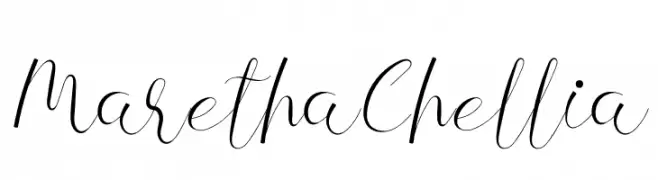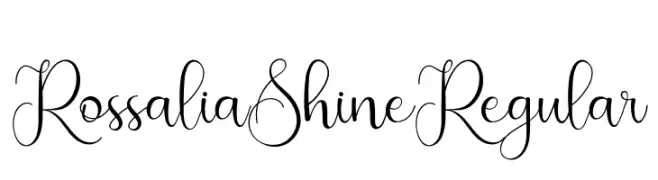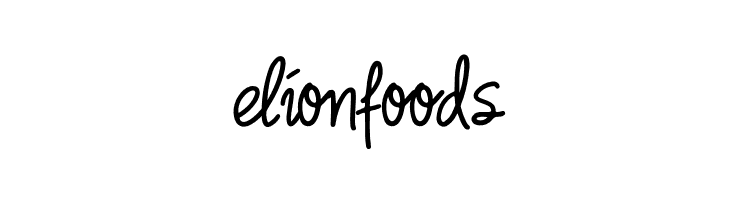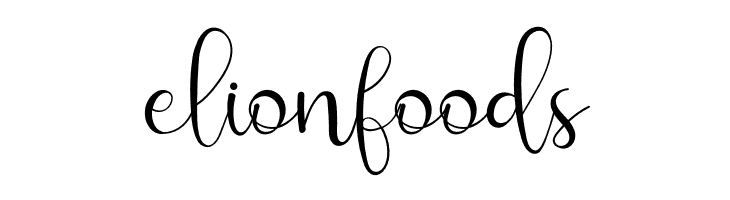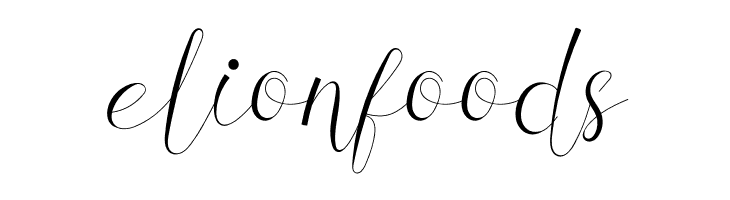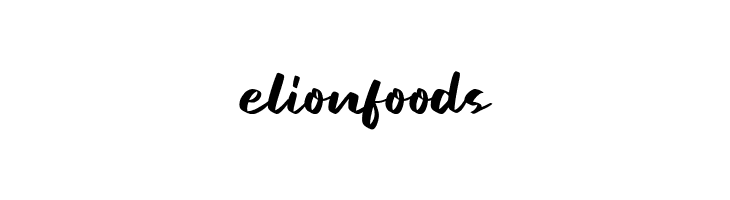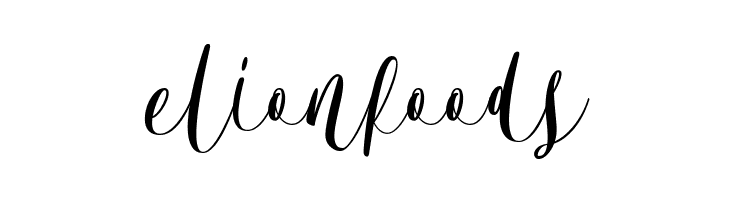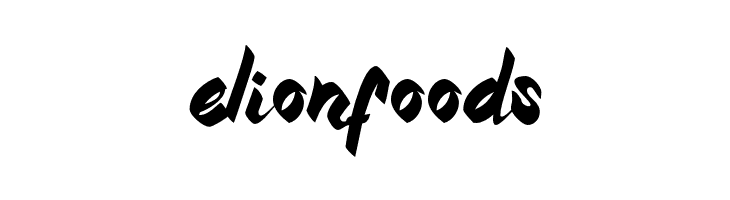
A modern, elegant script font with flowing, connected strokes.
A playful, handwritten cursive font with a casual and energetic style.
A graceful script font with flowing, connected strokes and a handwritten style.
An elegant, flowing script font with intricate loops and swirls.
An elegant and flowing script font with delicate, graceful strokes.
A playful, handwritten font with rounded, consistent strokes and a casual feel.
A bold, flowing script font with elegant, dynamic strokes.
A delicate, handwritten cursive font with a modern and elegant style.
A flowing, cursive font with an elegant and artistic flair.
A bold, expressive script font with a dynamic, cursive style.